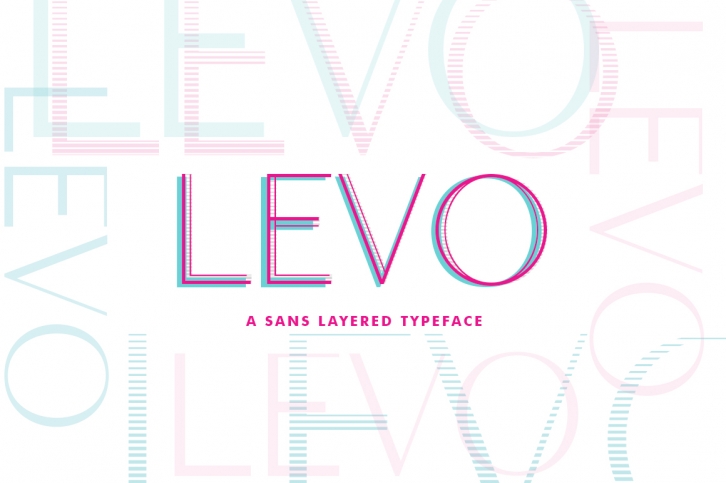
Levo sans layered typeface is a cool font that will usher in great designs this new year. This clean, appealing sans serif font comes in three different styles, giving you maximum options in optimizing your typeface based designs.